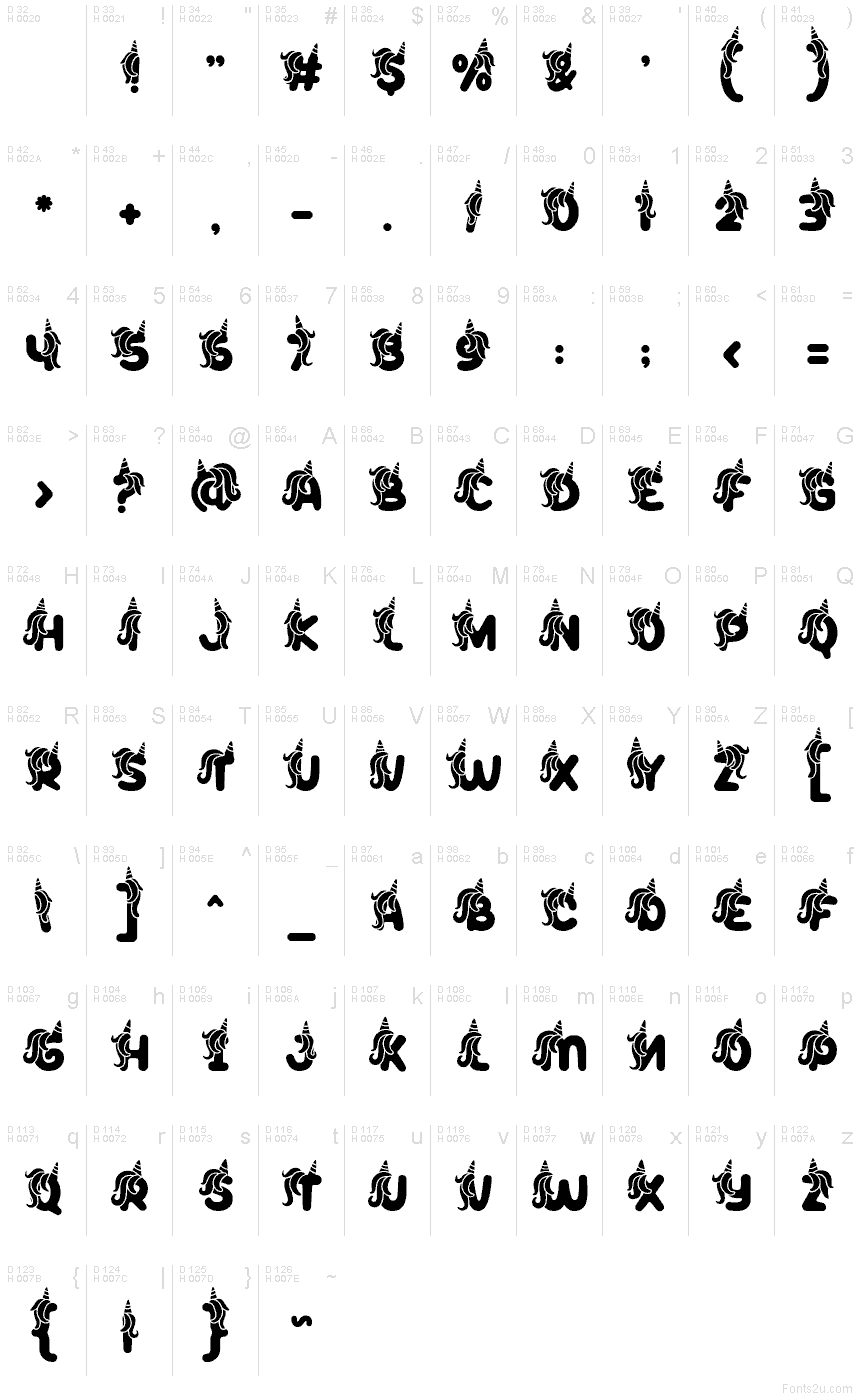
Peppy Pegasus Horn One
Peppy Pegasus Horn One font by PutraCetol Studio is a free decorative display font with a bold appearance. It balances vintage inspiration with modern influences and features intricate detailing within its artistic letterforms. The overall look, which feels both luxurious and playful, is achieved by the different strokes used artistically in creating the beautiful embellishments and ornaments found on some of its characters.
Decorative fonts provide endless design possibilities so let your imagination run wild in invitations, stationery designs, business card branding projects, etc. Use it to decorate diaries and notebooks or as store name signage on both physical shop fronts as well as online ones. Websites such as blogs are another option you could explore with Peppy Pegasus Horn One typeface today!